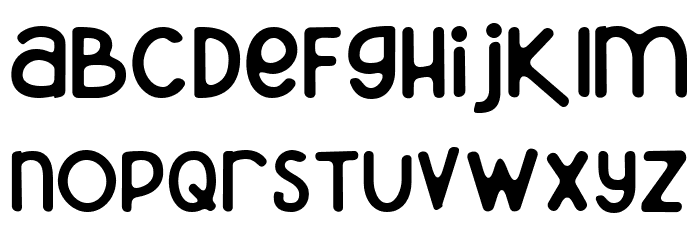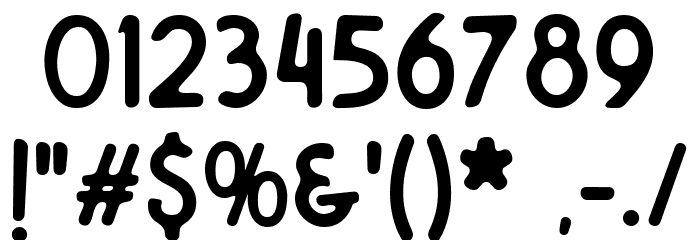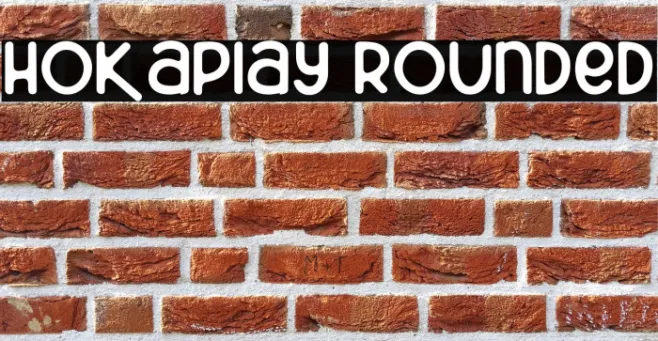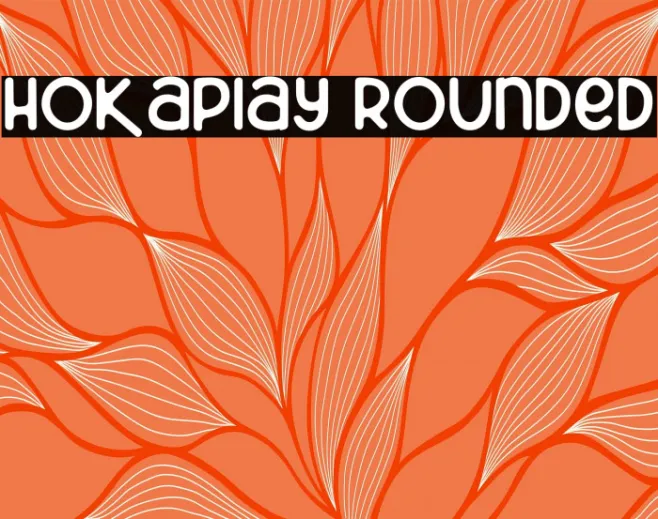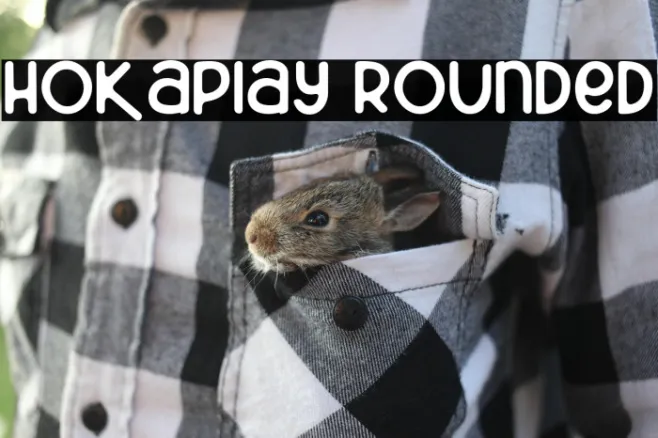
Hokaplay Rounded Font
This playful and rounded font features smooth curves and a friendly appearance. The characters are bold and have a consistent stroke width, giving them a uniform look. The rounded edges soften the overall feel, making it approachable and suitable for casual or informal designs. The font maintains a balanced proportion between height and width, ensuring readability while adding a touch of whimsy. Its unique style is characterized by the absence of sharp angles, which contributes to its inviting and warm aesthetic.
A playful, rounded font with smooth curves and a friendly appearance.
- Proposed Projects: Ideal for children's books, playful branding, casual invitations, and creative posters.
- Overall Style: Playful